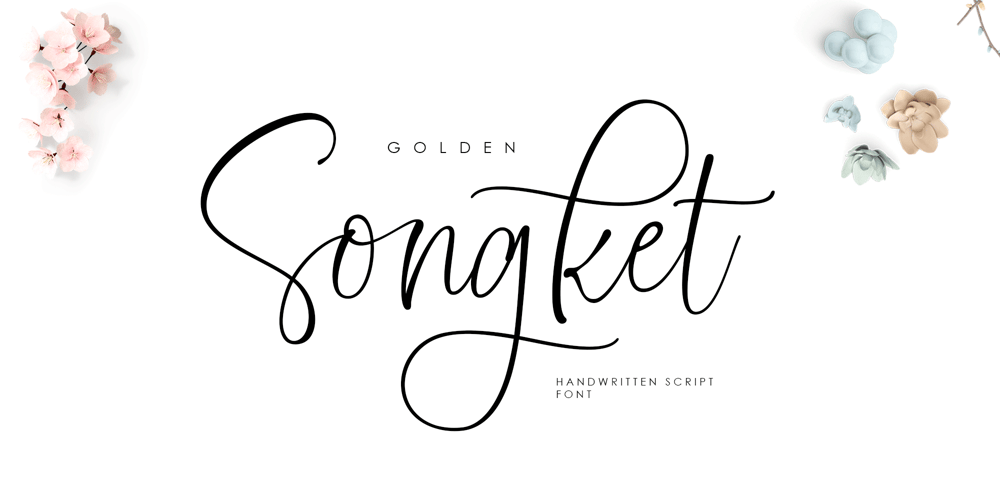
Golden Songket Font Family was designed by Muriza Moriztype and published by moriztype. Golden Songket contains 1 styles and family package options. Golden Songket Script is a dazzling script font. This font is neatly crafted and highly detailed. Whatever the topic, this font will be a wonderful asset to your font library, as it has the potential to enhance any creation.If your latest project needs a bit of an elegant touch, it’s time to introduce Golden Songket Script to your font library. This stylish typeface features OpenType features such as ligatures, style sets, and has 452 glyphs and all PUA encoded characters.Fonts can be accessed in Adobe Illustrator, Adobe Photoshop, Microsoft Word, CorelDraw, and other applications that support OpenType features. It is fully accessible without additional design software.